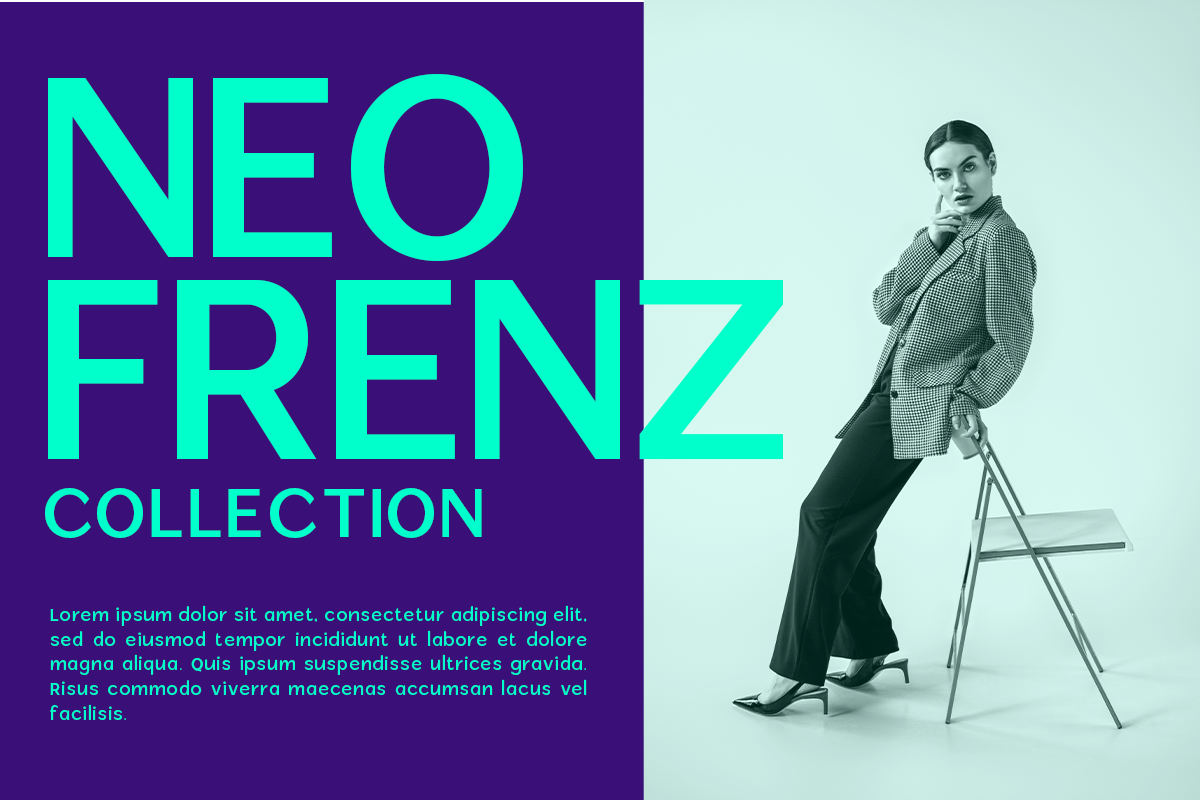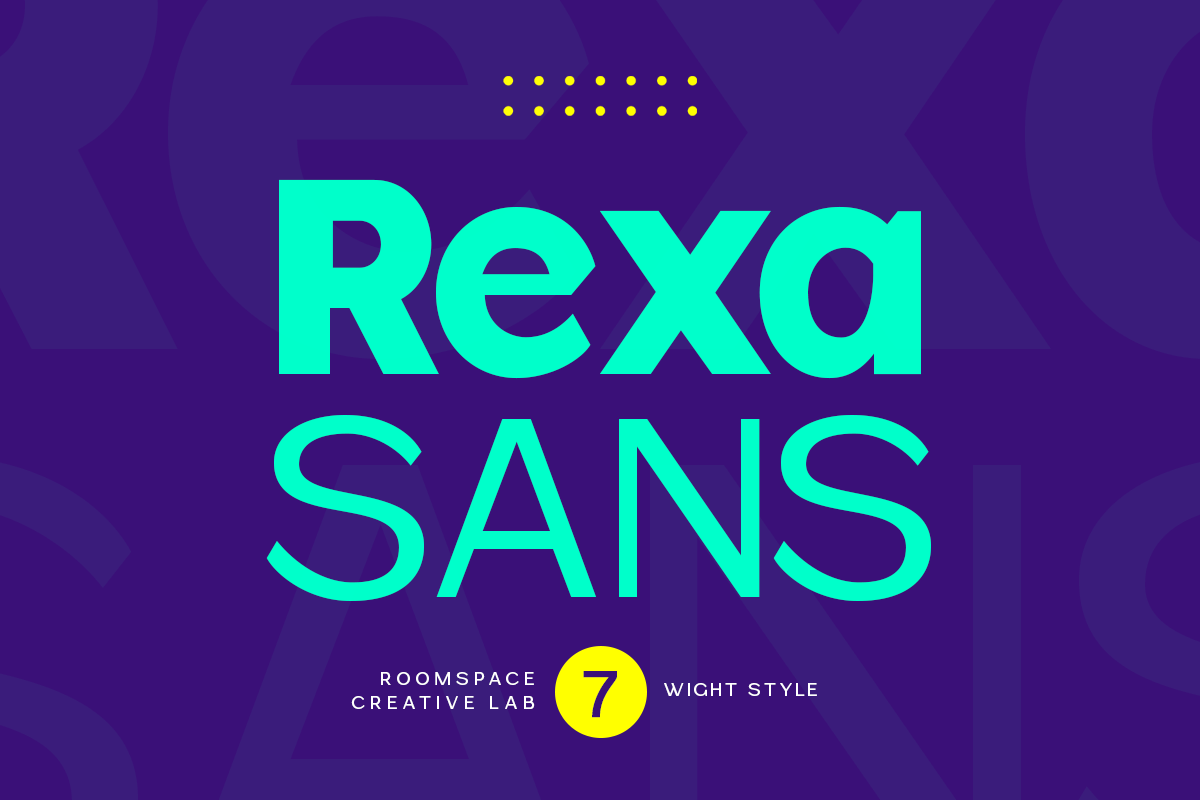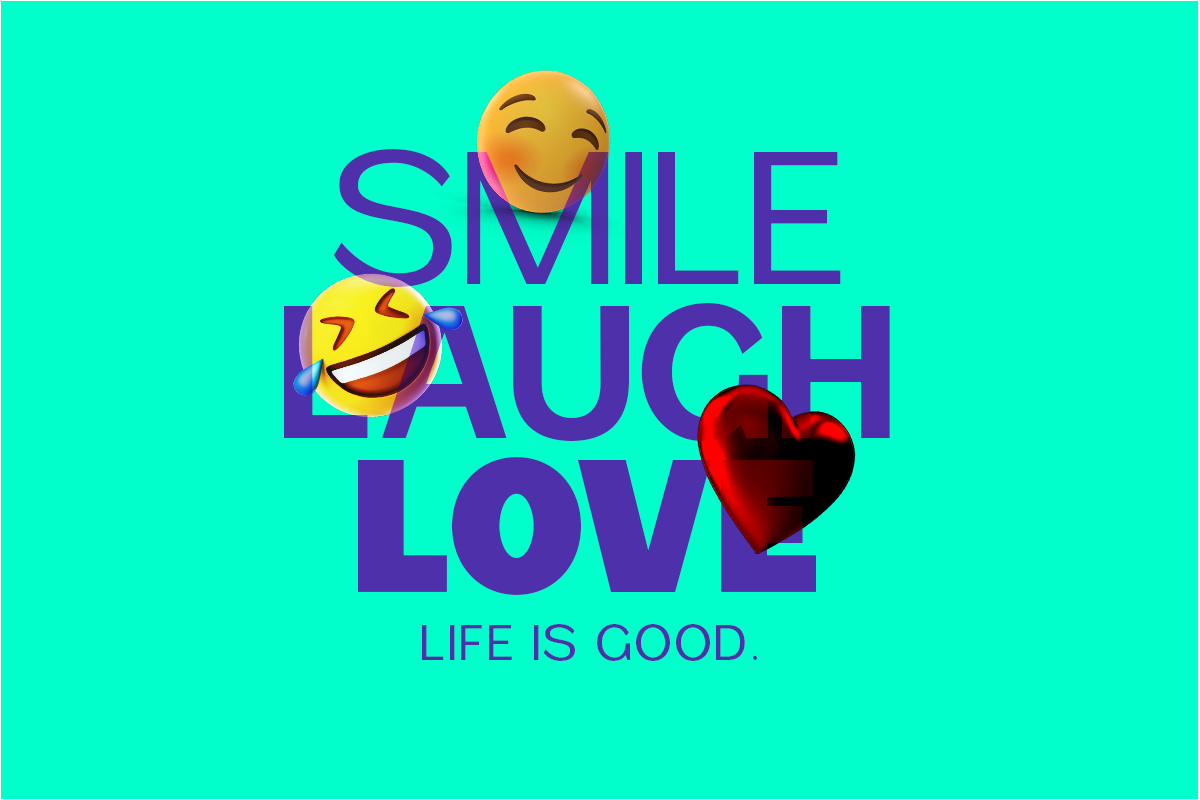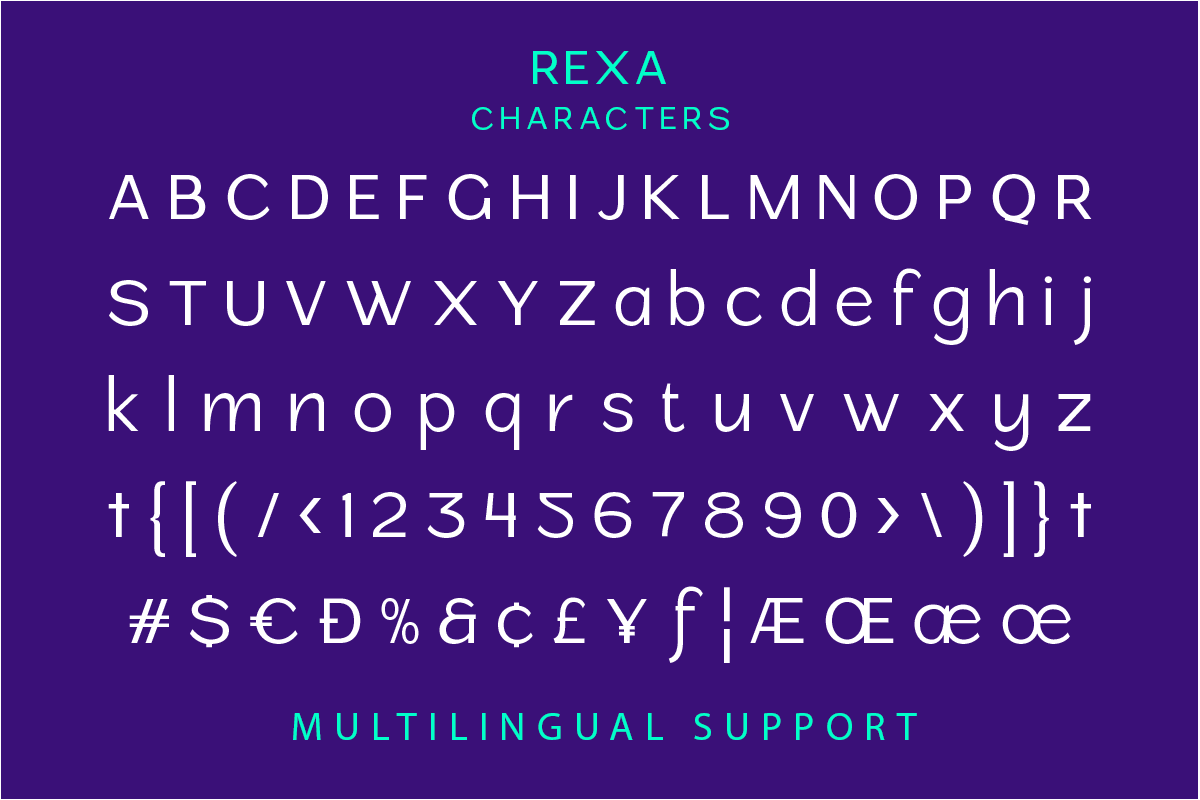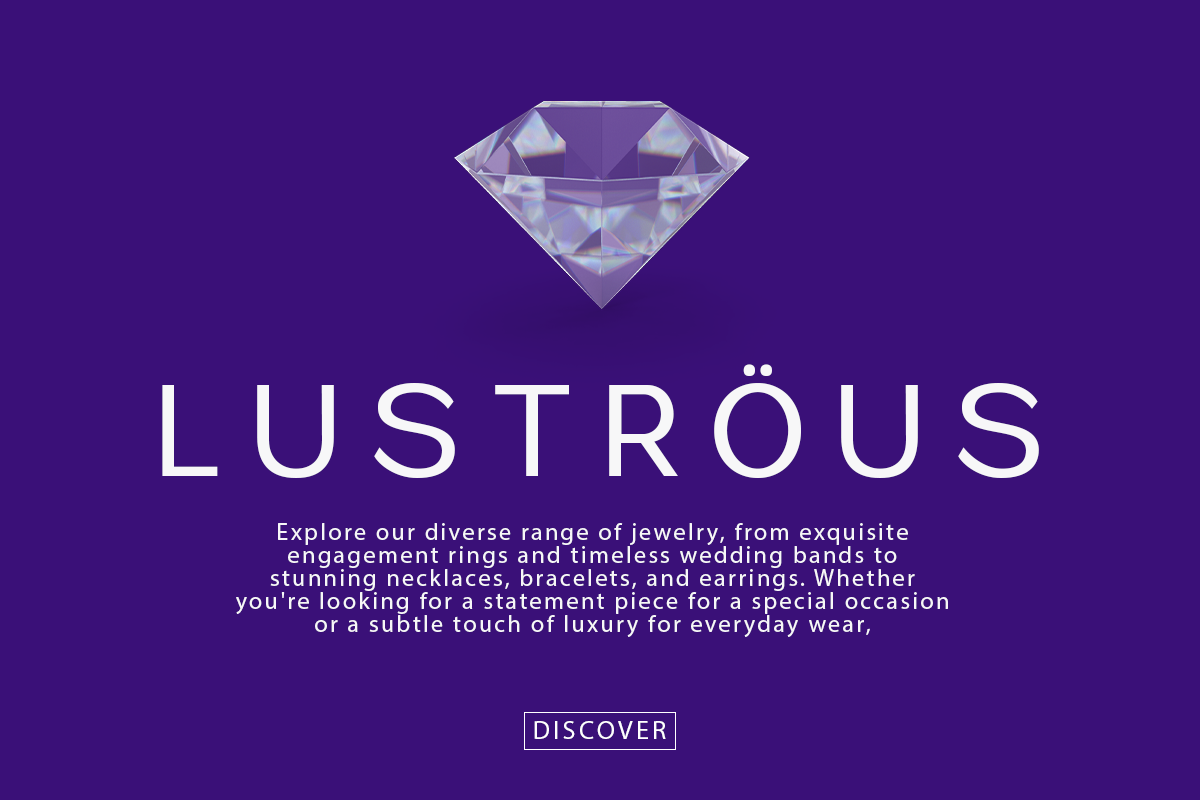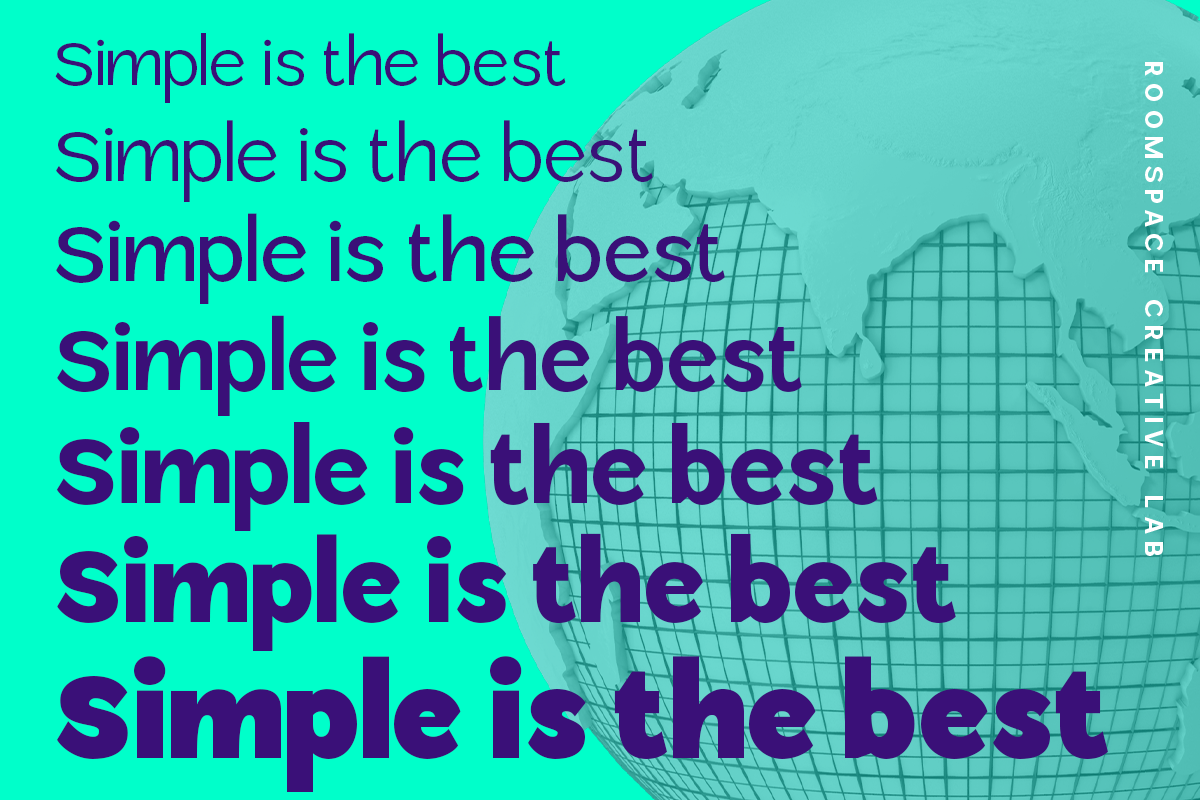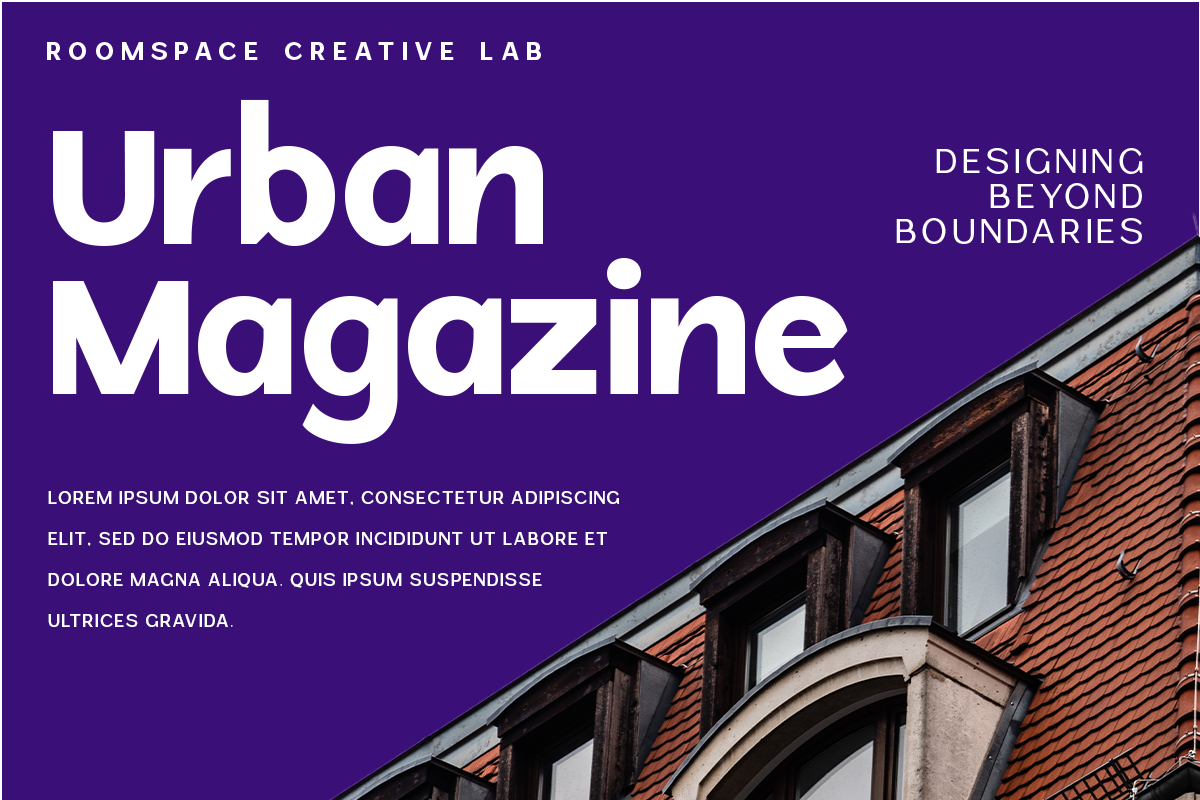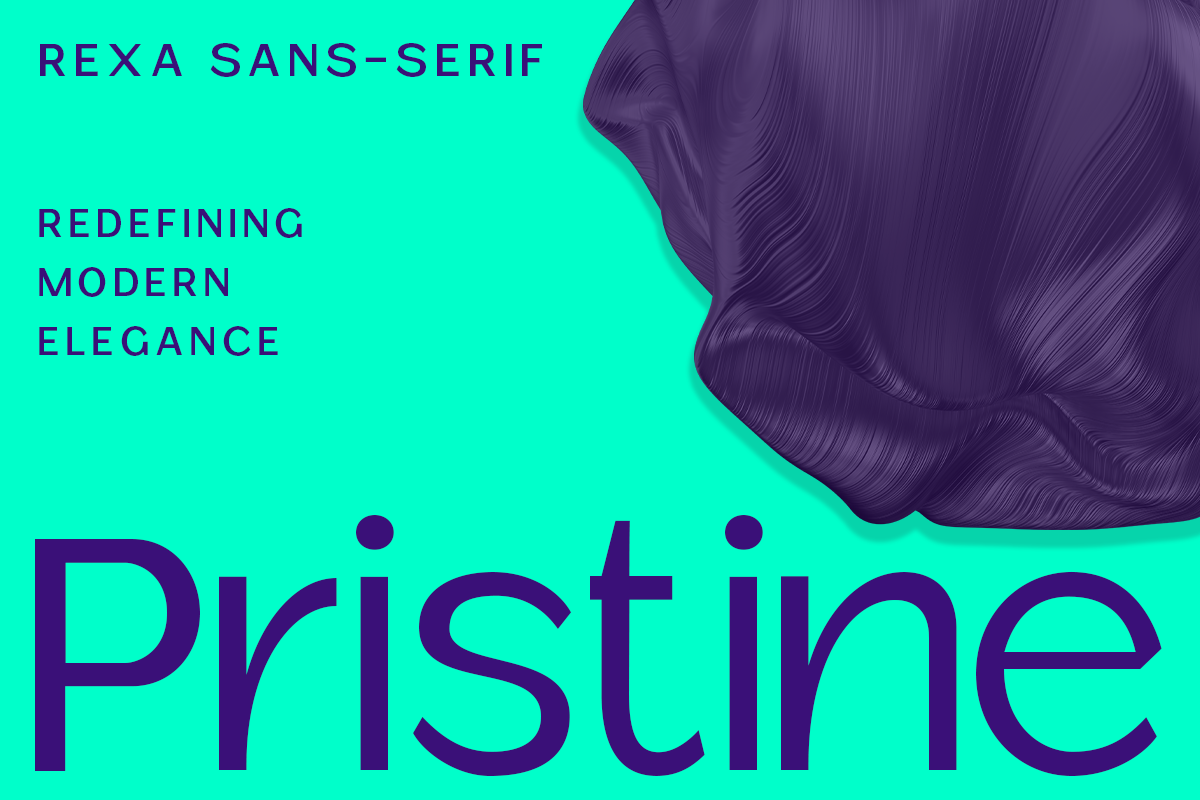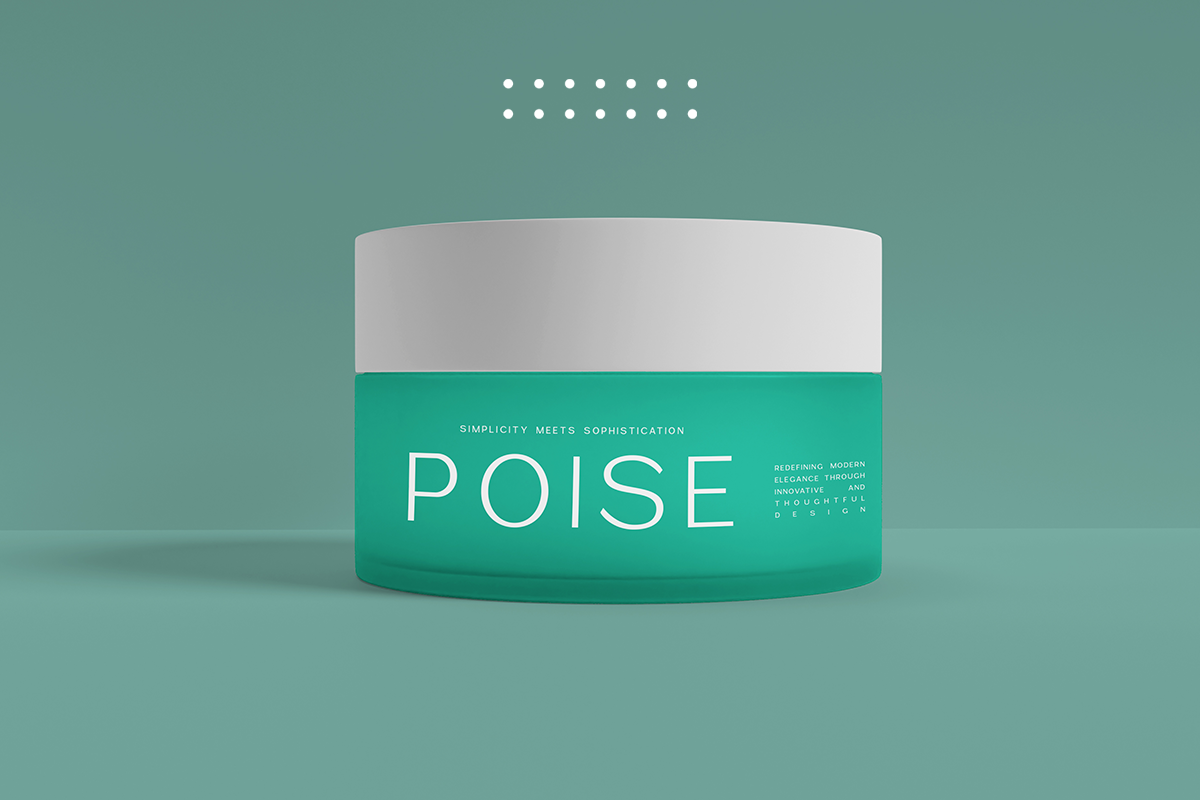
Rexa Sans-Serif Typeface
Rexa Sans Serif Typeface, meticulously crafted by Roomspace Creative Lab to meet the diverse needs of today's designers. Rexa is a modern sans-serif font family that combines sleek aesthetics with unparalleled versatility. With 7 distinct weights, Rexa offers a comprehensive solution for any design project, whether you're working on branding, editorial layouts, web design, or print materials.
- Contemporary Design: Rexa's modern, geometric design ensures that your text remains clear and visually appealing, regardless of the medium.
- Seven Weights Included: This typeface family includes Thin, Extra Light, Light, Regular, Medium, Semi-Bold, and Bold weights, giving you the flexibility to choose the perfect weight for your project.
- Wide Range of Uses: Rexa is perfect for various applications including branding, logo creation, website design, advertising, and more. Its versatility makes it a valuable addition to any designer's toolkit.
- Comprehensive Language Support: Rexa supports an extensive range of languages, including all major Latin-based languages, making it suitable for global use.